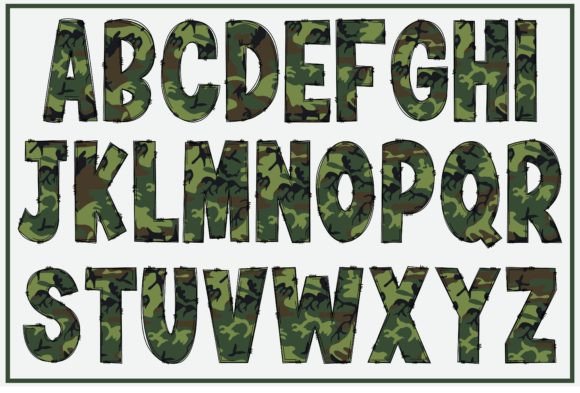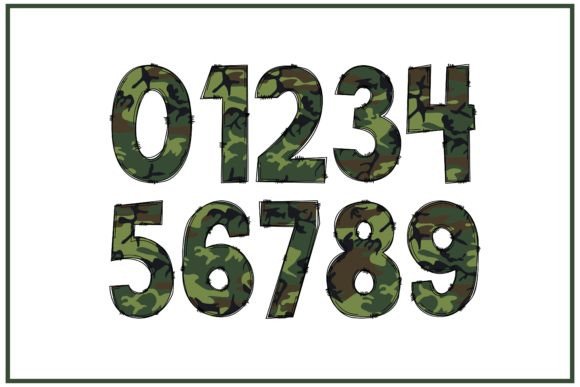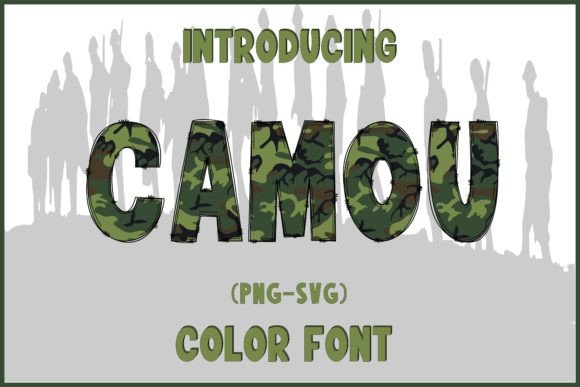
Introducing Camou Font: The Ultimate Military-Inspired Typeface for Designers and Crafters
Are you tired of using the same old fonts in your designs? Do you want to add a touch of edginess and ruggedness to your projects? Look no further than Camou Font, a bold military camouflage font that’s sure to make your designs stand out. In this article, we’ll take a closer look at Camou Font, its features, and how you can use it to elevate your designs.
What is Camou Font?
Camou Font is a unique and eye-catching typeface that features a green forest pattern, reminiscent of military camouflage. The font is bold, rugged, and perfect for designs that require a touch of military-inspired flair. Whether you’re working on a logo, poster, or craft project, Camou Font is sure to add a distinctive and memorable touch.
Key Features of Camou Font
- Bold and Rugged Design: Camou Font features a bold and rugged design that’s perfect for making a statement.
- Green Forest Pattern: The font’s green forest pattern gives it a unique and eye-catching look that’s sure to turn heads.
- Military-Inspired: The font’s military-inspired design makes it perfect for projects that require a touch of edginess and ruggedness.
- High-Quality: Camou Font is a high-quality font that’s designed to work seamlessly with a variety of design software.
How to Use Camou Font in Your Designs
Camou Font is a versatile typeface that can be used in a variety of design projects, including:
- Logos and Branding: Use Camou Font to create a bold and memorable logo that’s sure to stand out.
- Posters and Flyers: Add a touch of edginess to your posters and flyers with Camou Font.
- Craft Projects: Use Camou Font to add a military-inspired touch to your craft projects, such as scrapbooking and card making.
- Social Media Graphics: Use Camou Font to create eye-catching social media graphics that are sure to grab attention.
Tips for Getting the Most Out of Camou Font
Here are a few tips for getting the most out of Camou Font:
- Experiment with Different Colors: While the green forest pattern is a key feature of Camou Font, don’t be afraid to experiment with different colors to create a unique look.
- Use it as a Statement Font: Camou Font is a bold font that’s perfect for making a statement. Use it as a headline font to grab attention.
- Pair it with Other Fonts: Camou Font can be paired with other fonts to create a unique and interesting look. Try pairing it with a clean and simple font for a bold and modern look.
Camou Font is a unique and eye-catching typeface that’s perfect for designers and crafters who want to add a touch of edginess and ruggedness to their projects. With its bold military camouflage design and high-quality construction, Camou Font is sure to make your designs stand out. Whether you’re working on a logo, poster, or craft project, Camou Font is a great choice for anyone looking to add a distinctive and memorable touch.